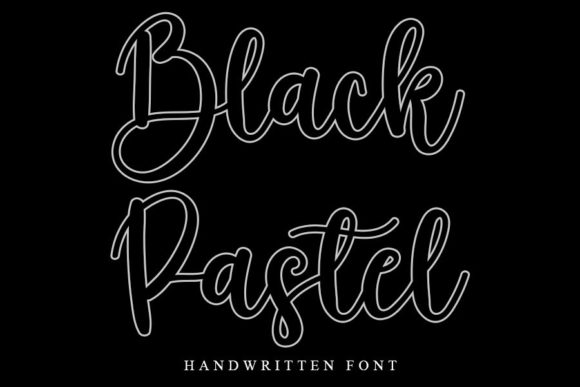
The Elegant Charm of Black Pastel Font: A Designer’s Delight
I’ll never forget the time I was working on a project for a high-end fashion brand, and I was struggling to find the perfect font to match their sophisticated aesthetic. The client was looking for something elegant, classy, and refreshing, and I was determined to deliver. That’s when I stumbled upon the beautiful Black Pastel font, a lovely and delicate script handwritten font that exuded elegance and class.
As a designer, I’m always on the lookout for fonts that can elevate my designs and make them stand out. Here’s what I love about Black Pastel:
- ✨ Elegant and refined: Black Pastel has a sophisticated feel that’s perfect for high-end designs.
- ✅ Highly legible: Despite its delicate nature, Black Pastel is surprisingly easy to read, even at smaller font sizes.
- 💫 Versatile: This font works beautifully for a range of design applications, from logos and branding to invitations and stationery.
Of course, no font is perfect, and Black Pastel does have a few quirks:
- ⚠️ Limited use of bold weights: If you need a super-bold or heavy weight, Black Pastel might not be the best choice.
- 🤔 Some glyphs can be a bit finicky: I’ve found that some of the more intricate glyphs and swashes can be a bit tricky to work with, especially for beginners.
The Story Behind Black Pastel
Black Pastel was created by a talented type designer who wanted to craft a font that would evoke the elegance and sophistication of traditional calligraphy. Inspired by the soft, delicate lines of pastel-colored artwork, the designer poured their heart and soul into creating a font that would be both beautiful and functional.
| What is the best use for Black Pastel font? | Black Pastel is perfect for designs that require an elegant, sophisticated look, such as logos, branding, invitations, and stationery. |